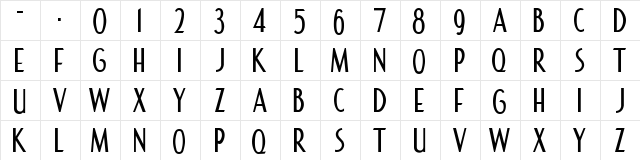
RemcoRemod XPDF Regular
Design Context for RemcoRemod XPDF Typeface
RemcoRemod XPDF offers clean, dependable letterforms without strong stylistic allegiance, making it a practical choice for designers who need flexibility.
Pro Tip: Use RemcoRemod XPDF in both headline and body roles to test its range before committing to a single application.